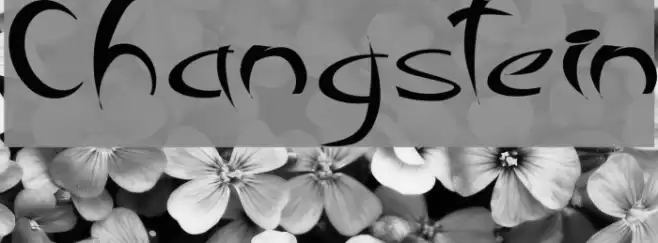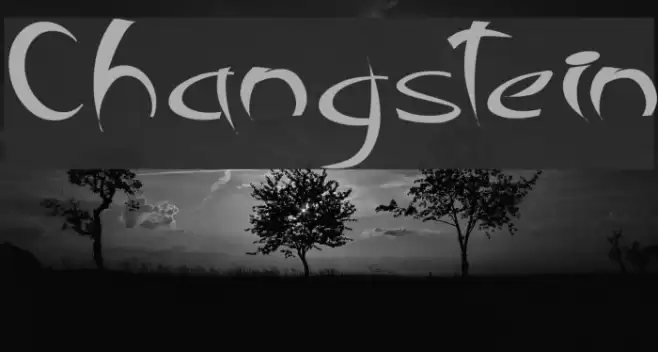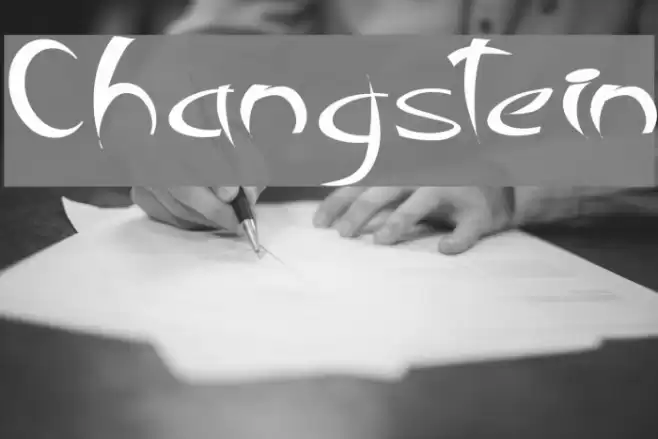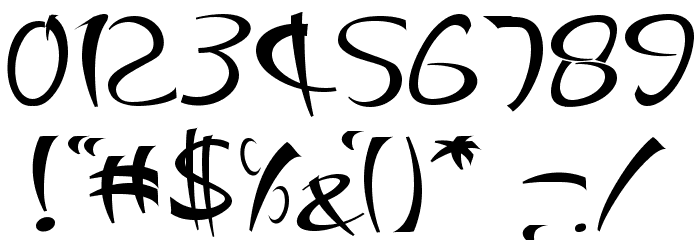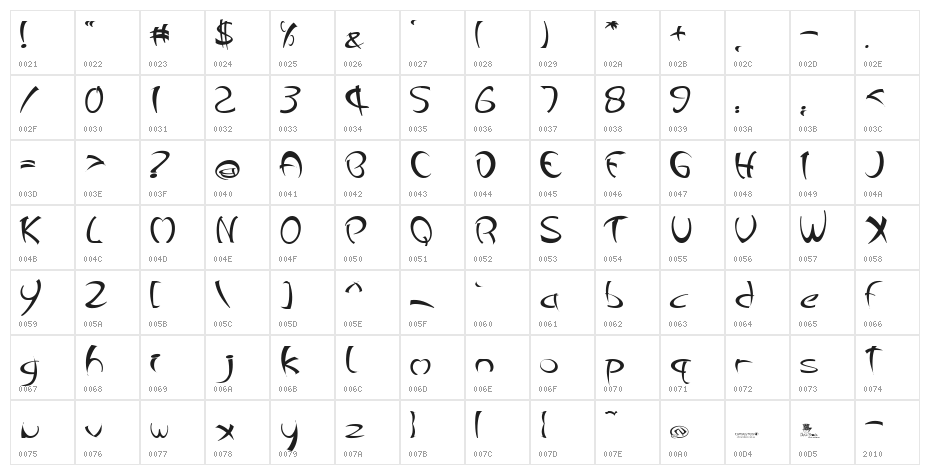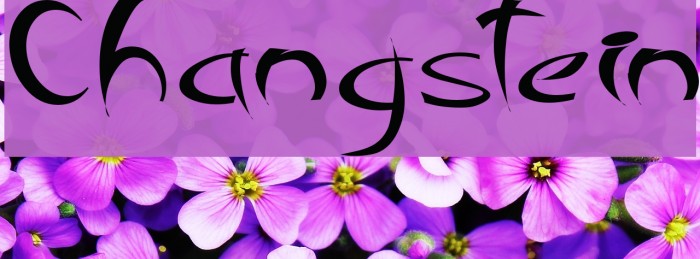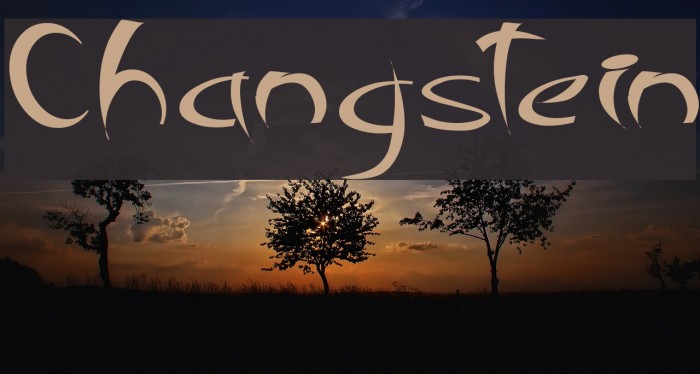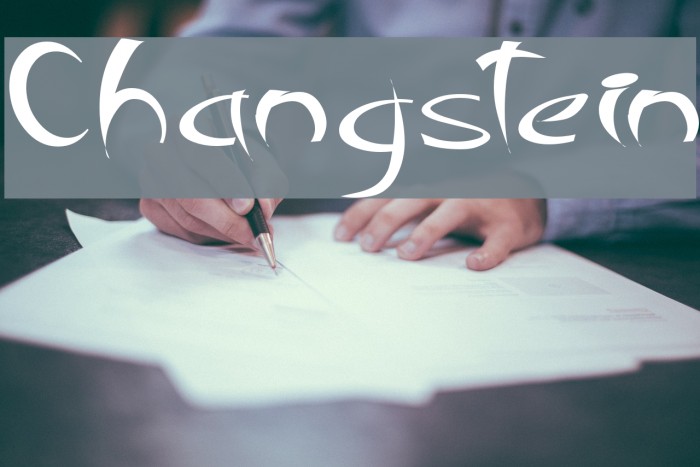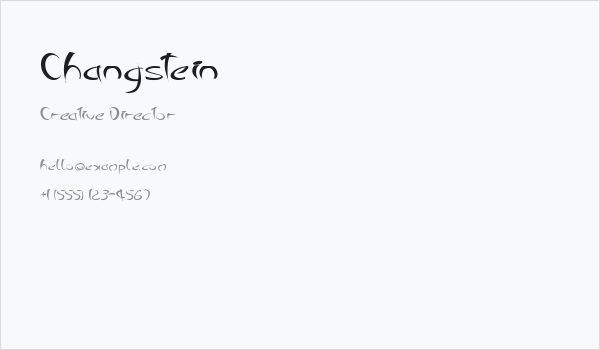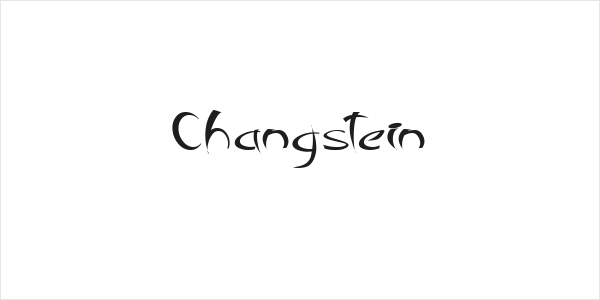
Changstein Font
Changstein Description
This font features a unique and artistic design with a strong emphasis on curves and sharp edges, creating a dynamic and energetic appearance. The characters are bold and have a high contrast between thick and thin strokes, giving them a striking and memorable look. The uppercase letters are particularly distinctive, with exaggerated curves and pointed ends that add a sense of movement and flair. The lowercase letters maintain this style, offering a cohesive and harmonious feel across the alphabet. The numbers and special characters are equally stylized, ensuring consistency throughout the font. This font is ideal for projects that require a bold and creative touch, such as branding, posters, and artistic designs.
A bold, artistic font with high contrast and dynamic curves from Uncategorized fonts.